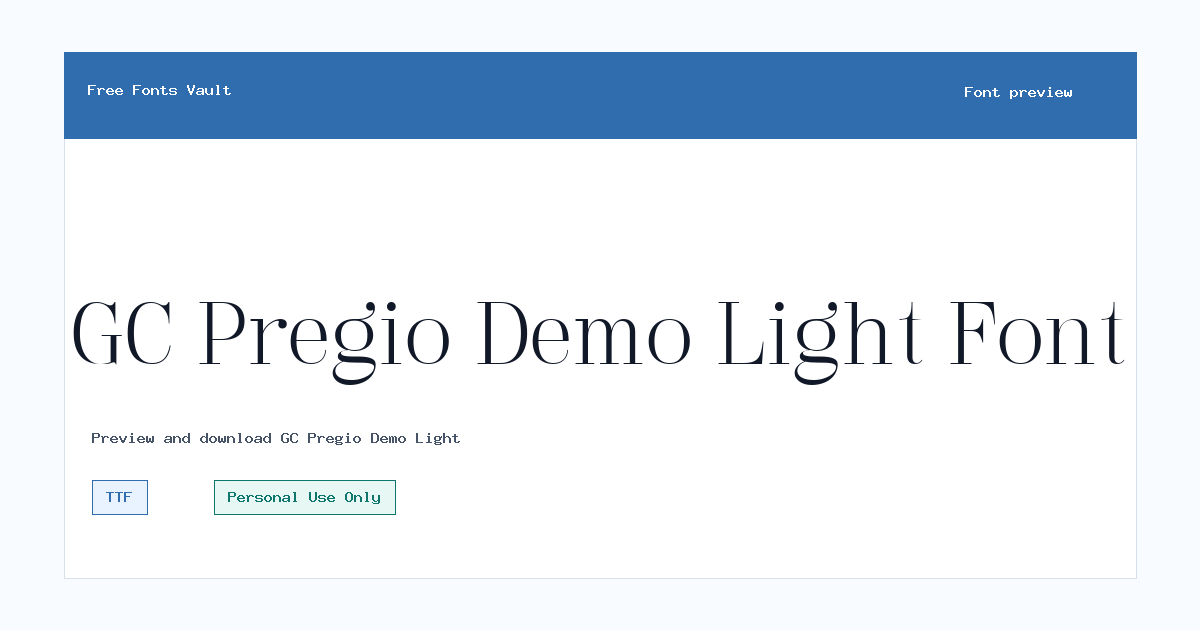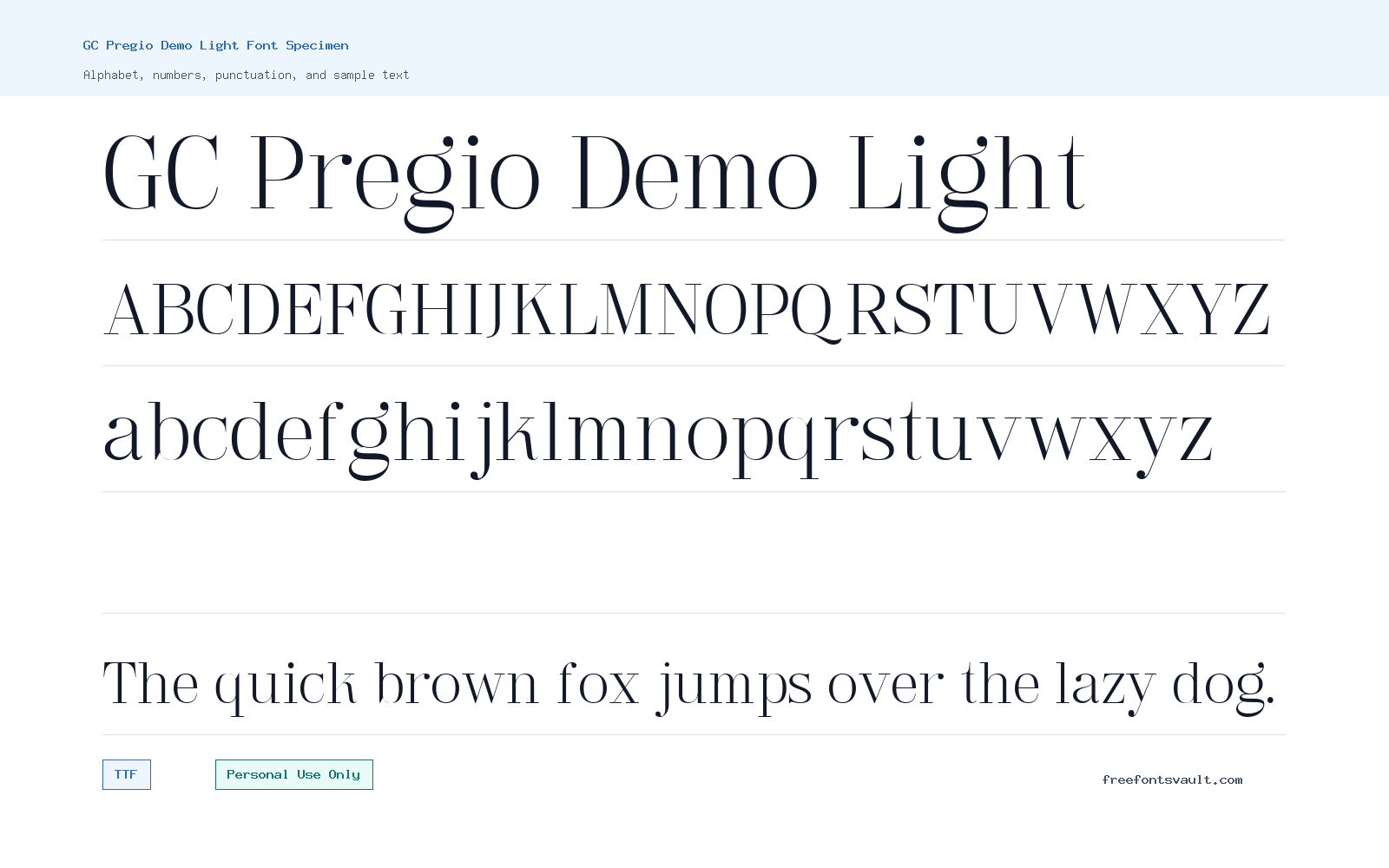
GC Pregio Demo Light
- Designer Dwi Indah Fadhilatul Amanah of Glyphonic.
GC Pregio Demo Light is a light-weight serif font with a refined, delicate feel. It is best approached as a display font for short text, brand drafts, editorial-style layouts, and design mockups where a softer serif voice is needed.
About GC Pregio Demo Light
GC Pregio Demo Light belongs to the GC Pregio family name and is offered in a Light style with a 300 font weight. The lighter weight gives the letters a slim and elegant appearance, so it can work well when you want a serif font that feels polished without looking heavy. Because this download is a demo light style, it is especially useful for testing the mood of the typeface before deciding whether it suits a larger design system, logo concept, or finished layout.
Use GC Pregio Demo Light for short, carefully spaced text rather than dense reading. It can suit logo sketches, fashion or beauty-style headings, poster titles, invitations, social graphics, editorial mockups, and web hero text. The light strokes may lose strength at very small sizes, so test it in the preview tool with the exact words you plan to use. For body copy, pair it with a clean sans serif or a more readable text serif, and let GC Pregio Demo Light handle the headline, nameplate, or accent text.
- Light serif style with a 300 font weight for delicate headings and display text
- Normal style variant for straightforward use in mockups and short text settings
- Works best with generous spacing, larger sizes, and simple supporting typography
- Useful for testing logo directions, poster titles, web mockups, and editorial-style layouts
- Logo drafts and wordmark exploration
- Poster titles and short display headlines
- Fashion, beauty, boutique, or editorial-style mockups
- Website hero text and landing page concepts
- Invitation headings, quote graphics, and social media designs
- Brand presentation slides where a light serif accent is needed
GC Pregio Demo Light is credited to Dwi Indah Fadhilatul Amanah of Glyphonic. The foundry name associated with the font is Glyphonic.
For the best result, preview your own wording before downloading. Light serif fonts can look graceful in large headings but become fragile when used too small, placed over busy images, or printed with low contrast. Try it in uppercase and lowercase, adjust letter spacing, and test it beside a simple sans serif for balance. If you are exploring a logo, check how the thinnest strokes hold up at favicon, business card, and mobile header sizes before committing to the design.
What kind of font is GC Pregio Demo Light?
It is a light-weight serif font. The available style is a normal Light variant with a 300 weight, making it better suited to display use than long paragraphs.
Is GC Pregio Demo Light good for body text?
It is better for short display text. Because it is a light serif style, long paragraphs may be harder to read, especially at small sizes or on low-resolution screens.
What should I pair it with?
Pair it with a simple sans serif for body copy, navigation, captions, and supporting text. Keep the pairing restrained so the light serif headline remains the visual focus.